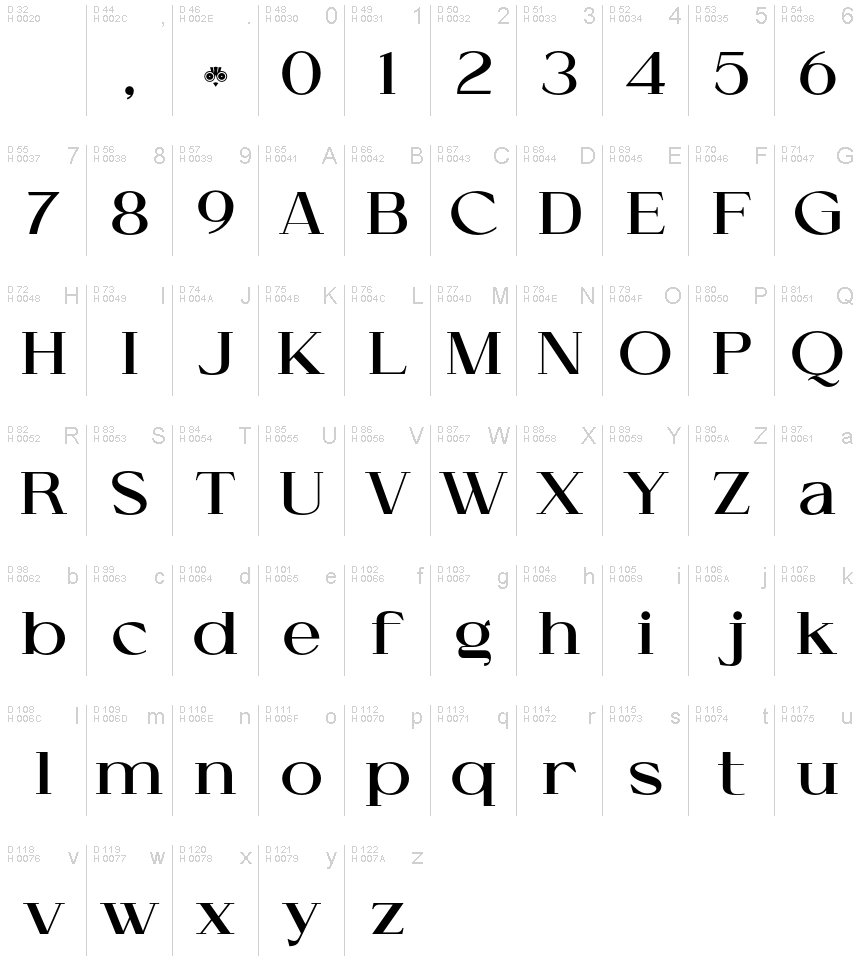
Cellofy ExtraBold SemiExpanded font, part of the Cellofy font family by the Owlking Project, is a striking serif that commands attention with its bold and semi-expanded design.
This font exudes elegance and authority, making it ideal for headlines, branding projects, and editorial design. Its distinguished serif style brings a classic yet modern touch to creative works. Free for personal use, Cellofy ExtraBold SemiExpanded offers designers an excellent opportunity to download a versatile typeface that enhances visual appeal across various contexts.
Whether you’re seeking a font for posters or digital media, the Cellofy font series ensures memorable impact and readability.
This font exudes elegance and authority, making it ideal for headlines, branding projects, and editorial design. Its distinguished serif style brings a classic yet modern touch to creative works. Free for personal use, Cellofy ExtraBold SemiExpanded offers designers an excellent opportunity to download a versatile typeface that enhances visual appeal across various contexts.
Whether you’re seeking a font for posters or digital media, the Cellofy font series ensures memorable impact and readability.